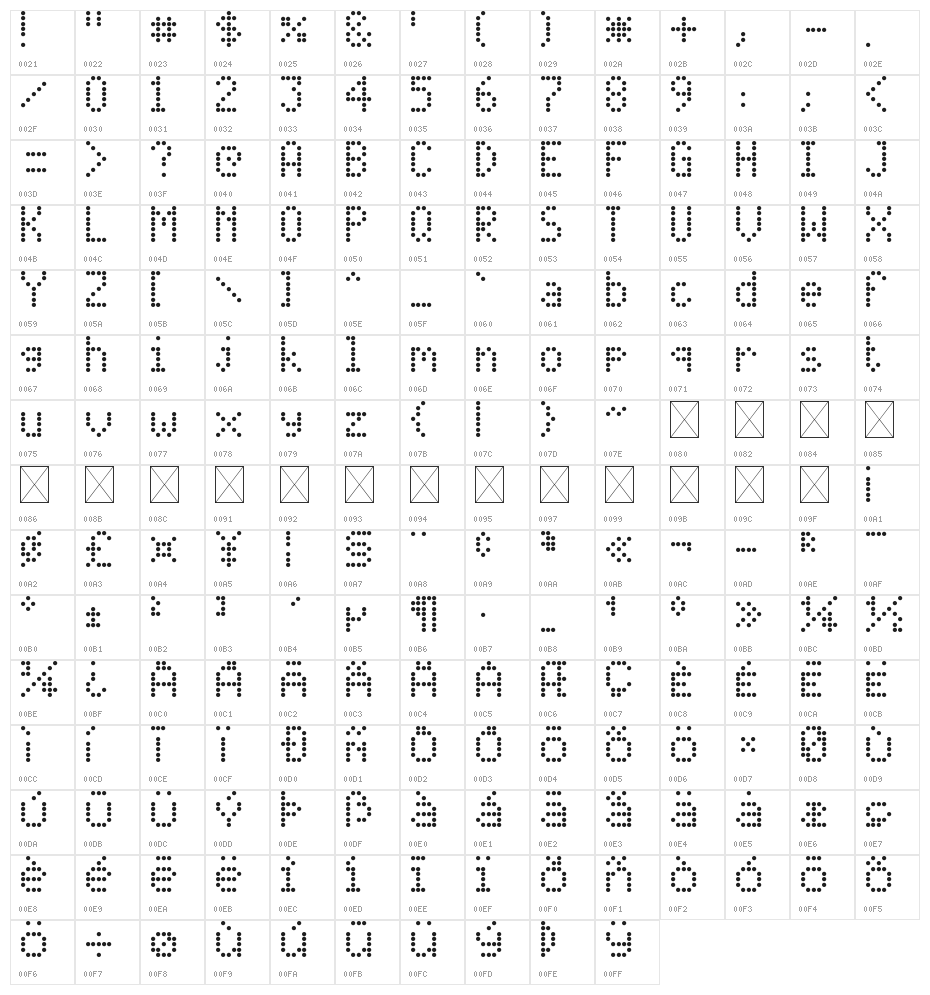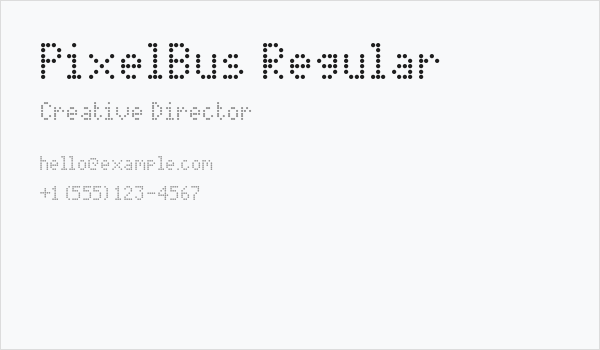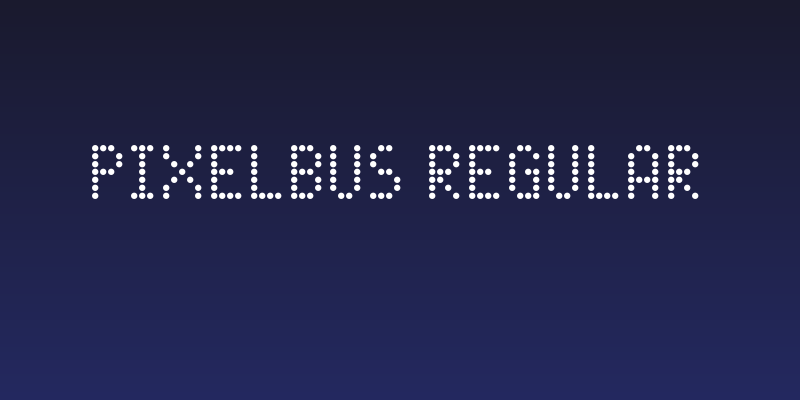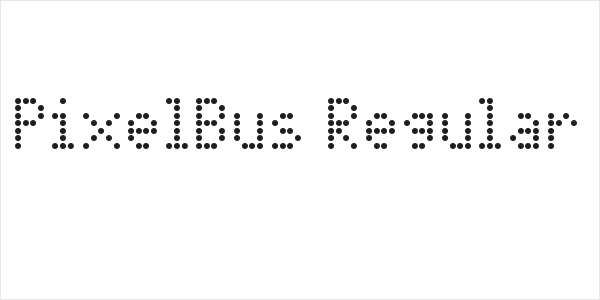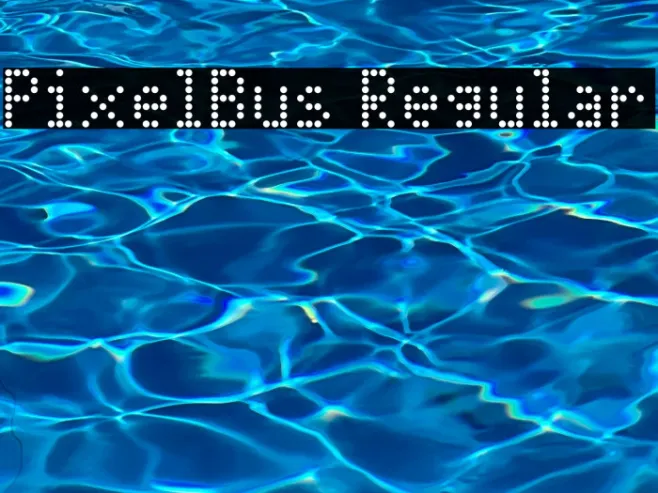
PixelBus Regular Font
PixelBus Regular Description
This font features a unique dot matrix design, where each character is composed of a grid of dots. The style is reminiscent of retro digital displays, giving it a distinct, pixelated appearance. The uppercase and lowercase letters, as well as numbers and special characters, maintain a consistent dot pattern, creating a cohesive look. The font's geometric structure and uniformity make it ideal for projects that require a digital or tech-inspired aesthetic. Its playful yet structured form can add a touch of nostalgia and modernity to any design.
| Proposed Projects | Ideal for digital art, retro-themed designs, tech branding, and creative posters. |